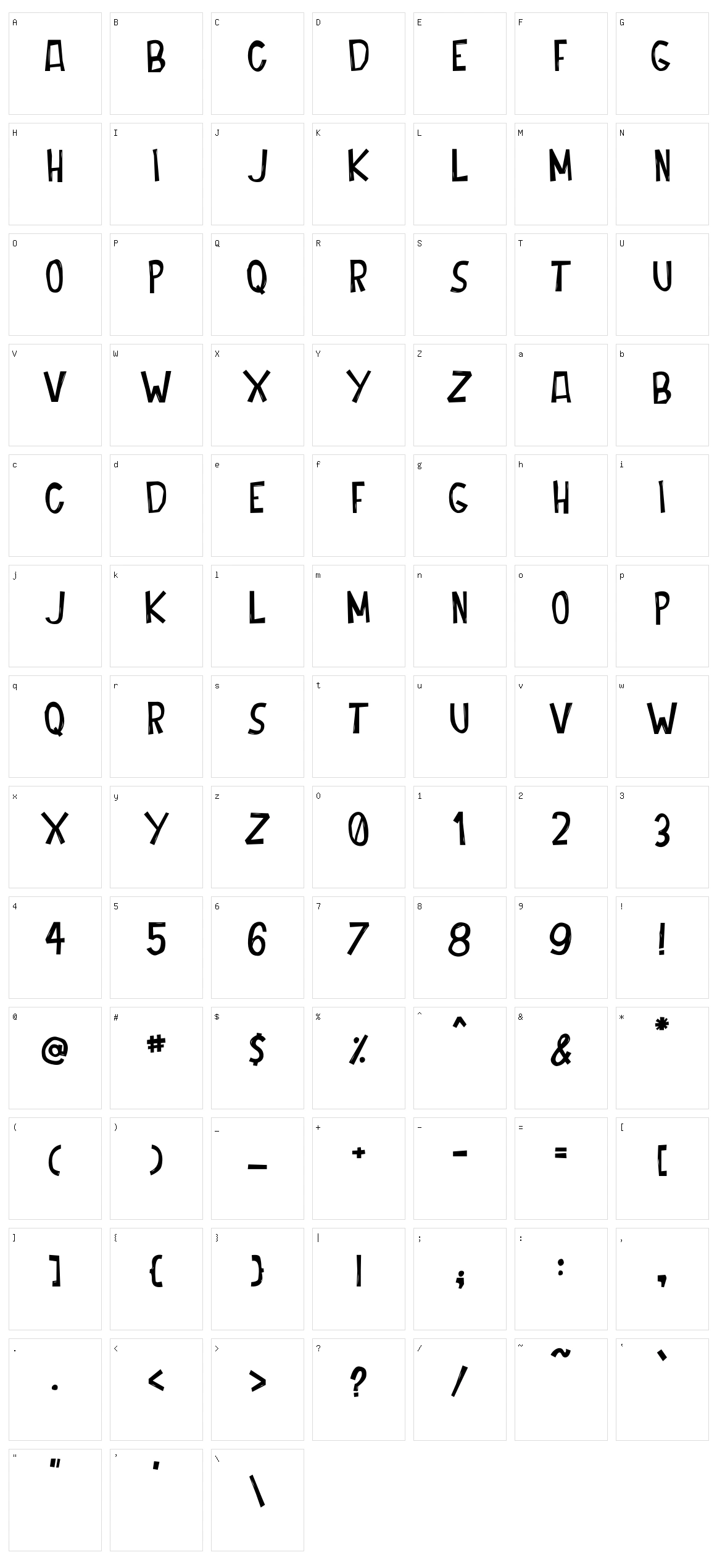
The free font Cordenilo is carefully designed by Danilo Miguel, showcasing a thoughtful balance of creativity and usability and falls under the Cartoon font style. When you download the ZIP file, it contains only 62.14 KB of font files, making it lightweight and quick to download. Please review the license details below to understand permitted usage and distribution rights. If license information is not available, we recommend using this font for personal projects only or contacting the author directly for commercial usage permissions.